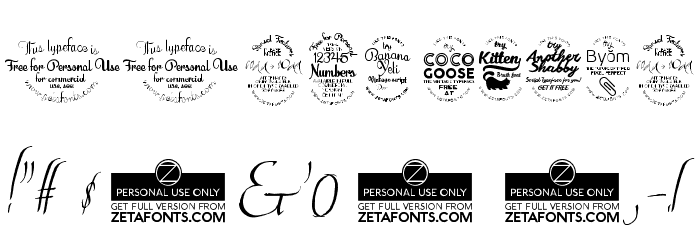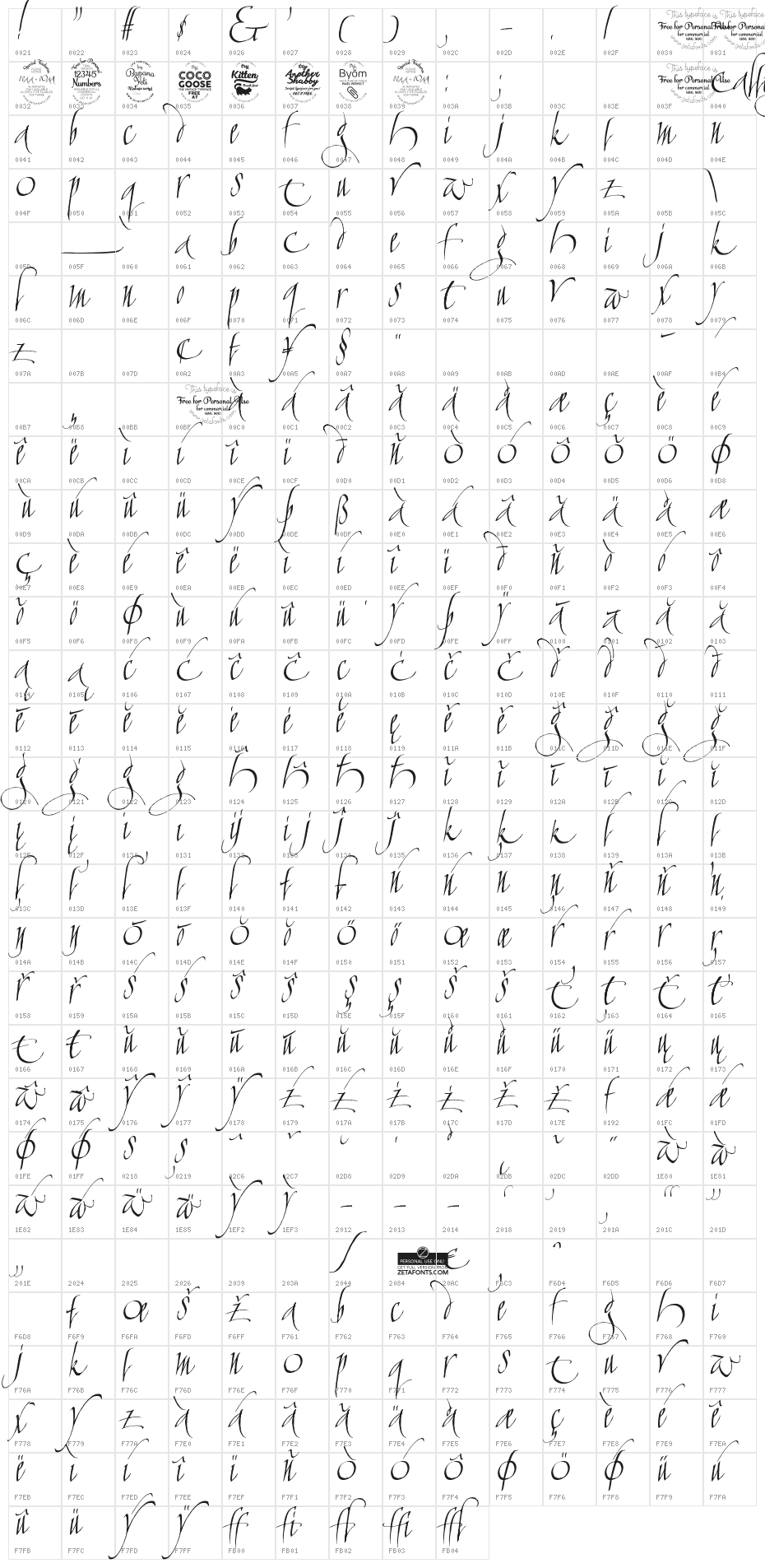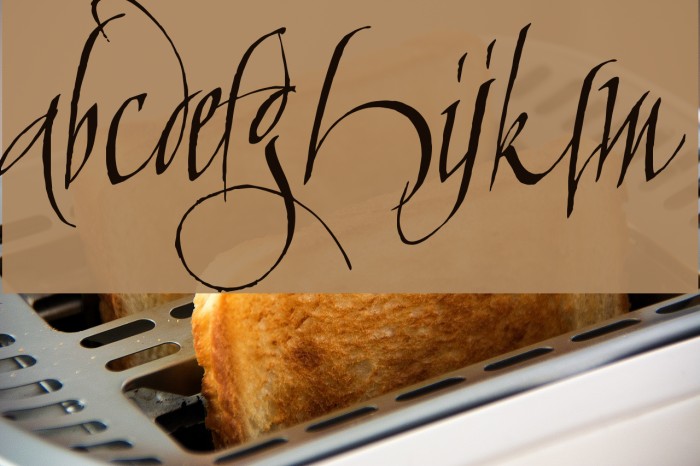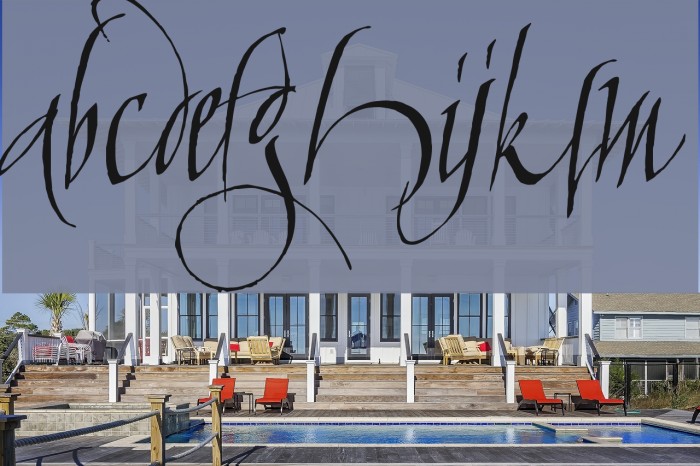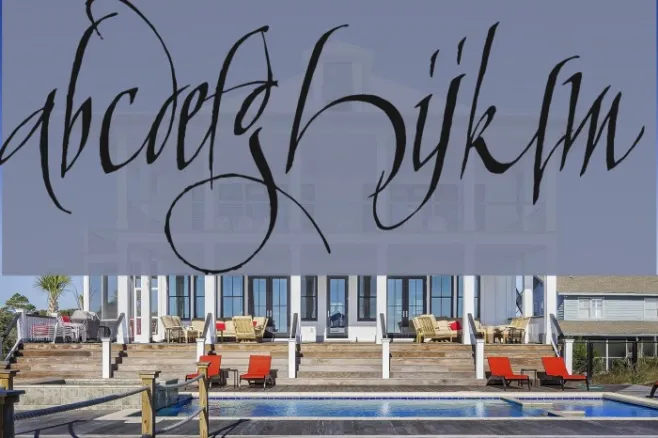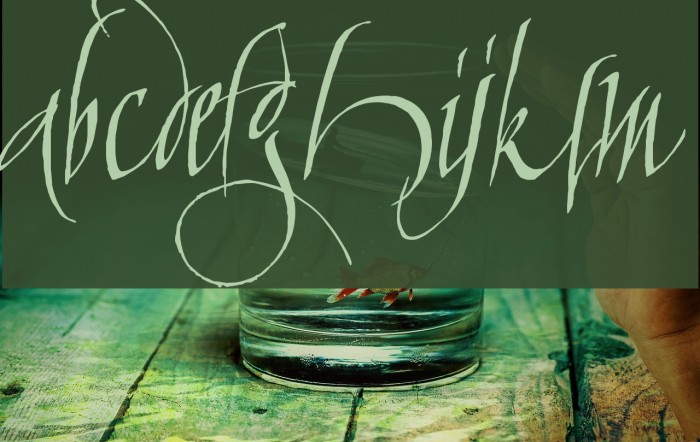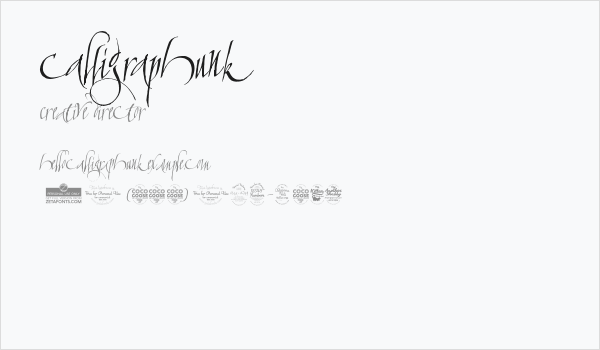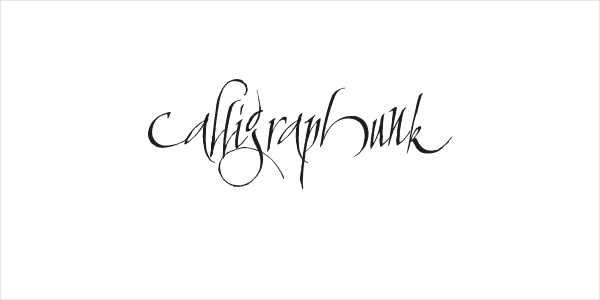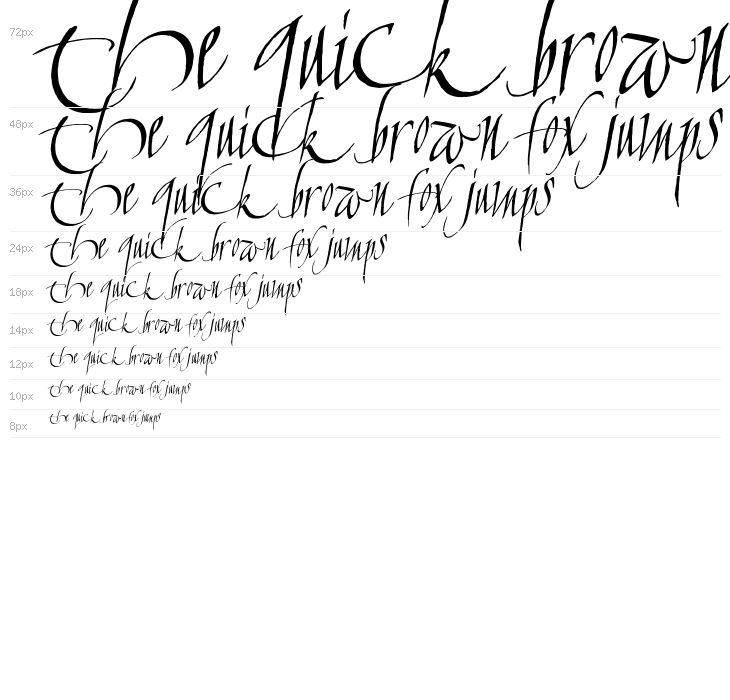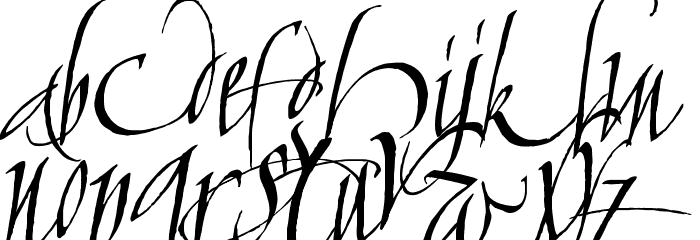
cAlLiGrApHuNk Font
cAlLiGrApHuNk Description
This font exhibits a dynamic and expressive style, characterized by its fluid, calligraphic strokes that convey a sense of movement and elegance. The letters are intricately designed with varying stroke widths, creating a high contrast that enhances its artistic appeal. The uppercase and lowercase letters flow seamlessly, with elongated ascenders and descenders that add to its graceful appearance. The font includes a full set of numerals and a selection of special characters, maintaining the same artistic flair throughout. Its unique style makes it suitable for creative projects that require a touch of sophistication and individuality.
| Proposed Projects | Ideal for wedding invitations, artistic branding, and elegant poster designs. |